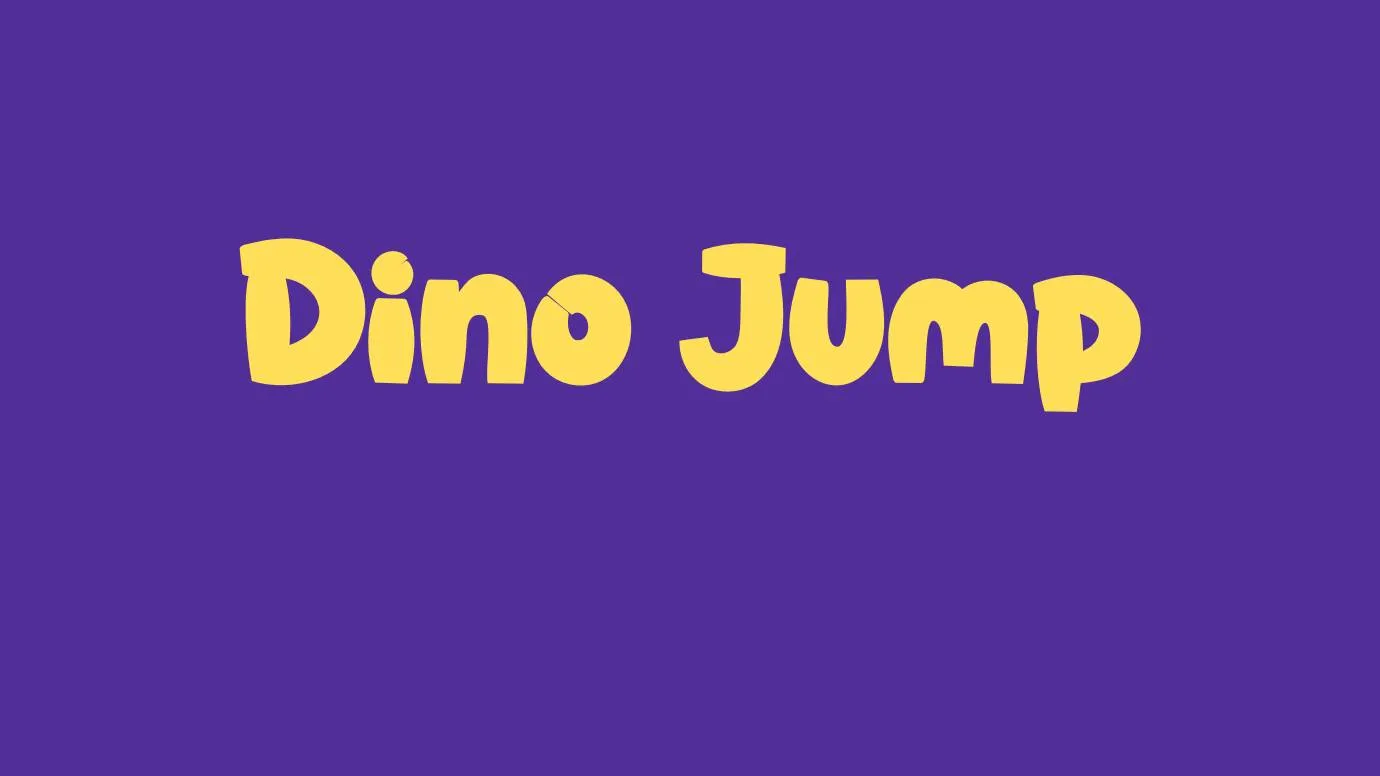
Dino JumpĀ is a beautiful display-type font. This amazing font was designed by Rozikan and manufactured by Twinletter. You can also use It for pairing with other fonts such as nooble wobble font for a more attractive and elegant look to your projects.
All the letters of this font are playful and with a bold look. You can make so many interesting projects by using this font.
Dino Jump Font